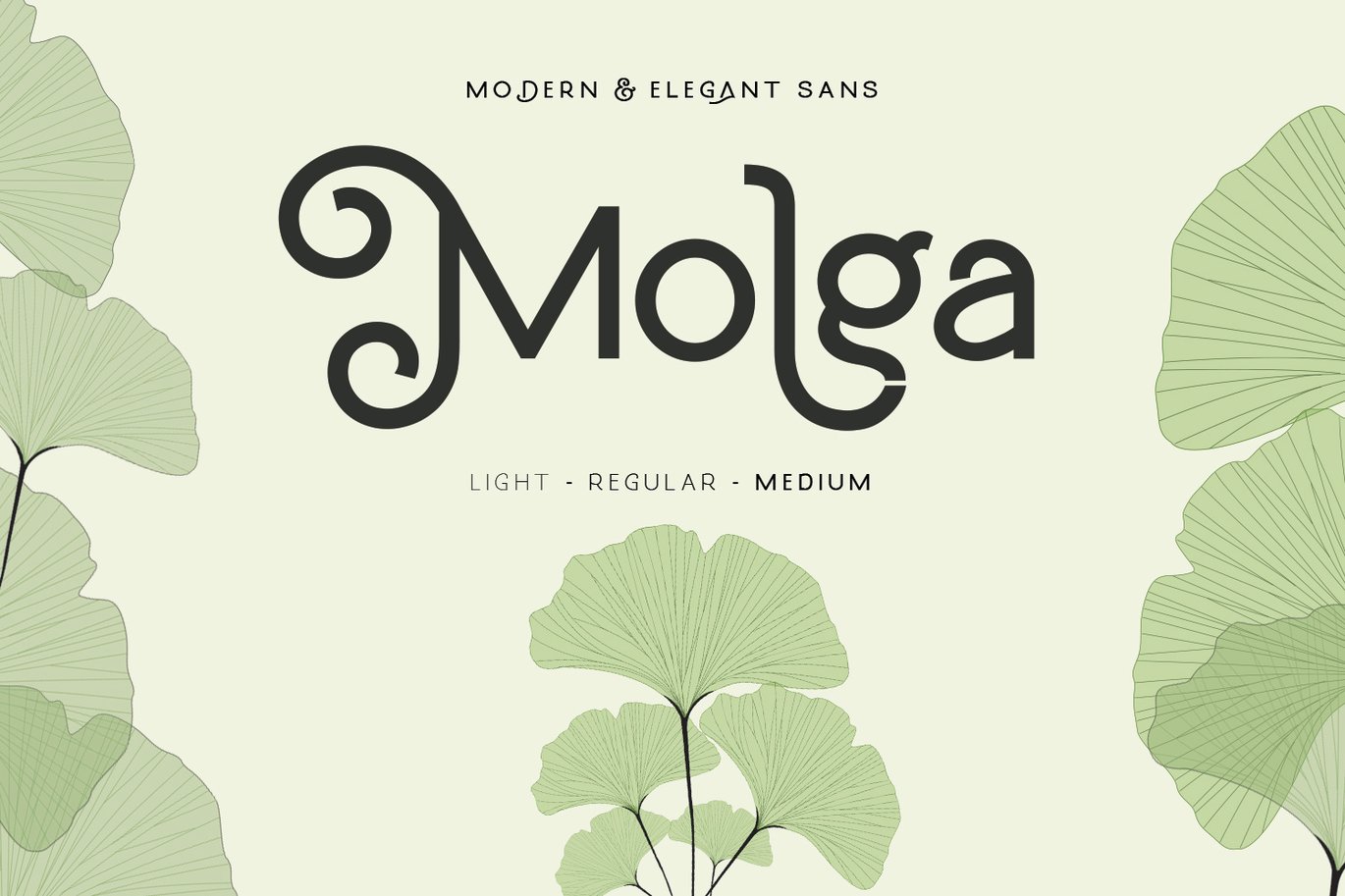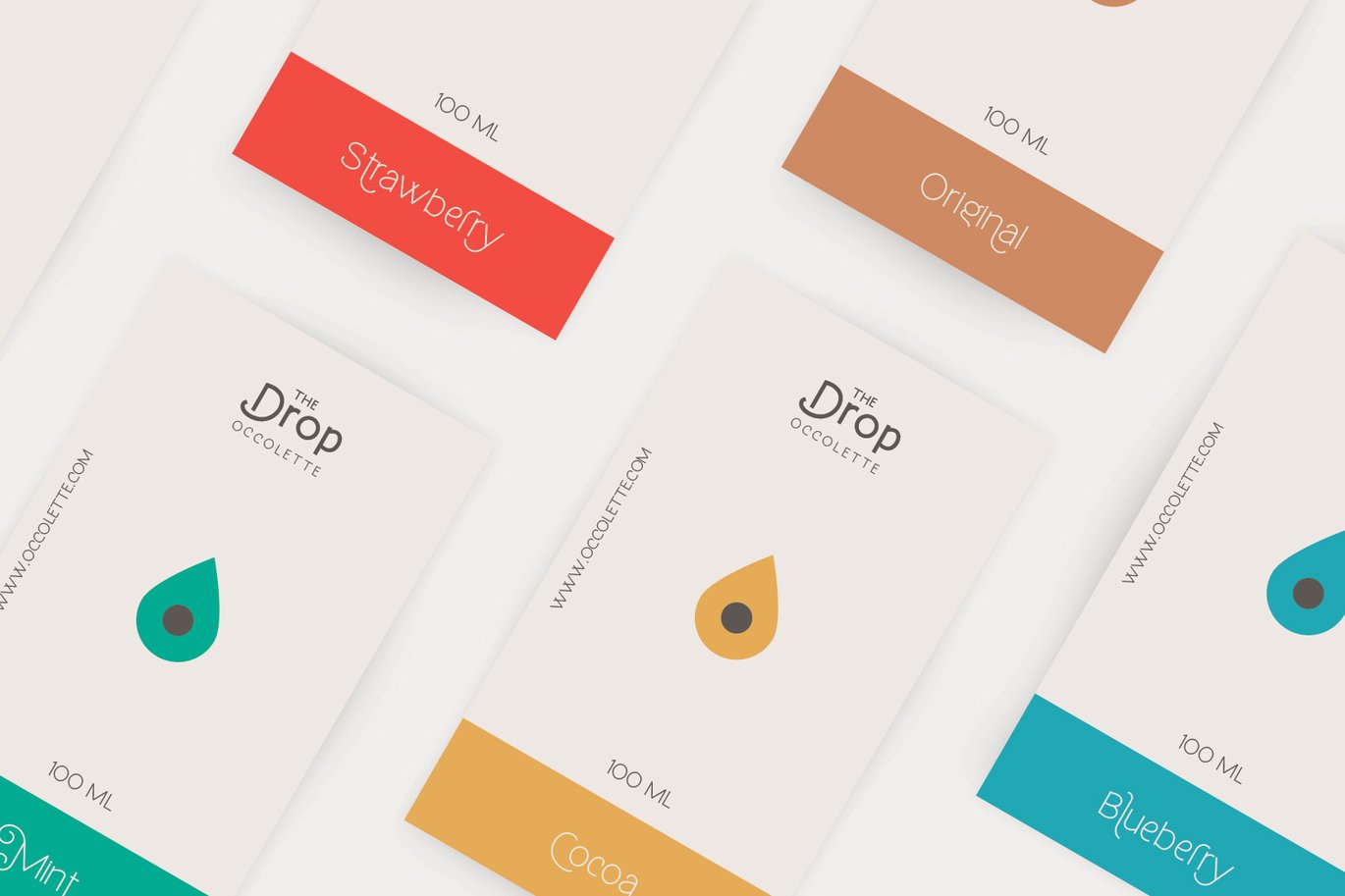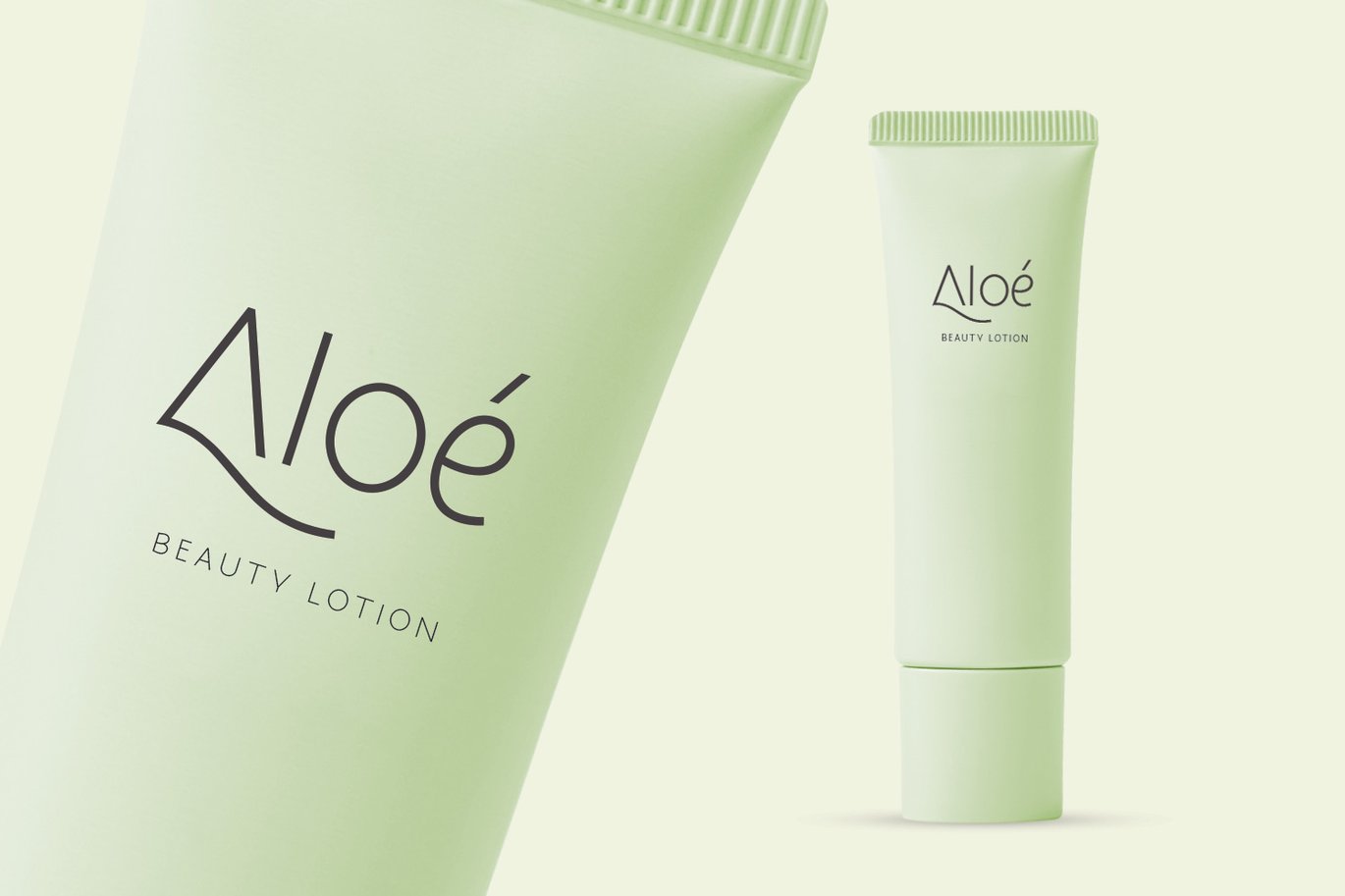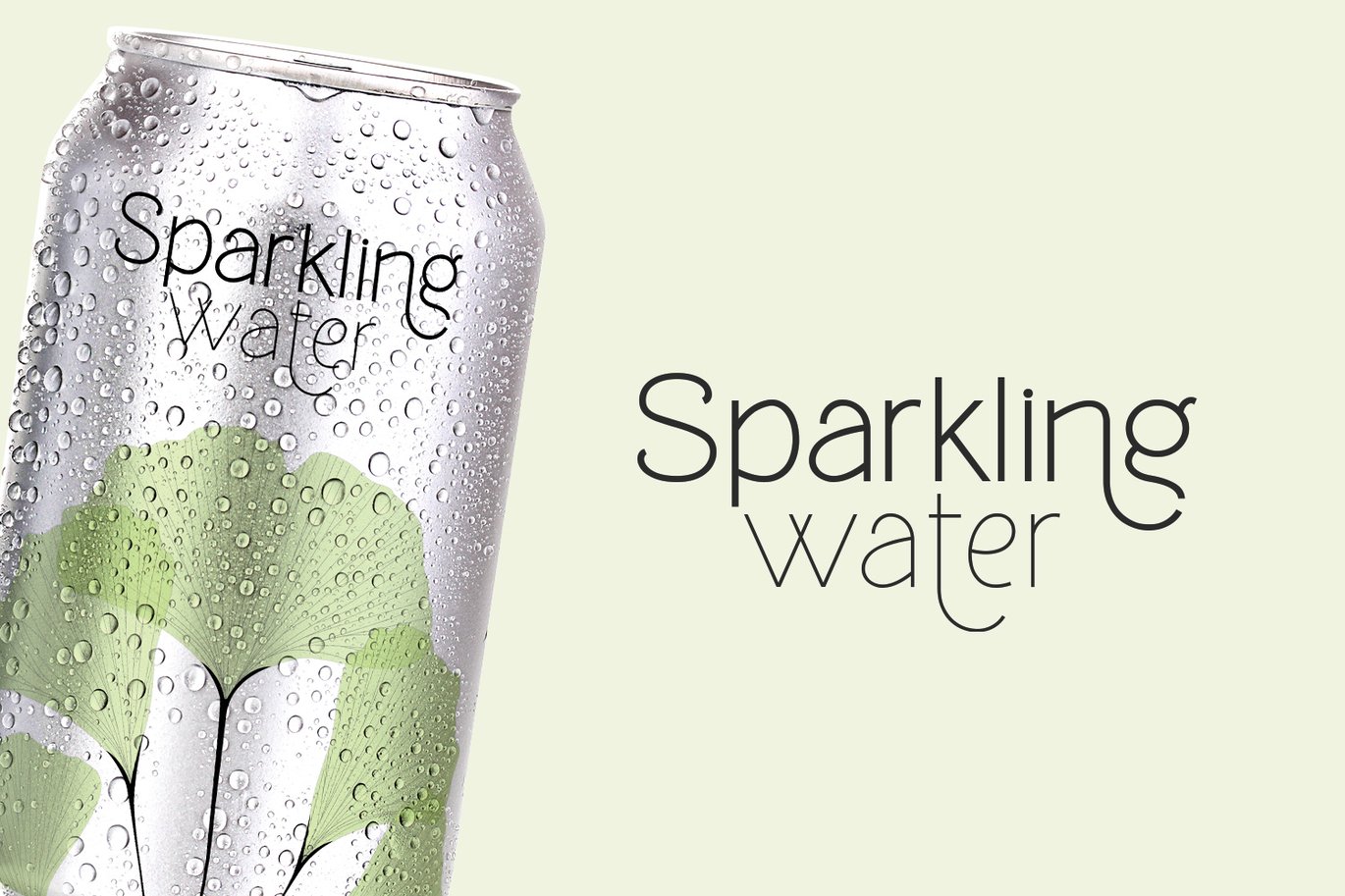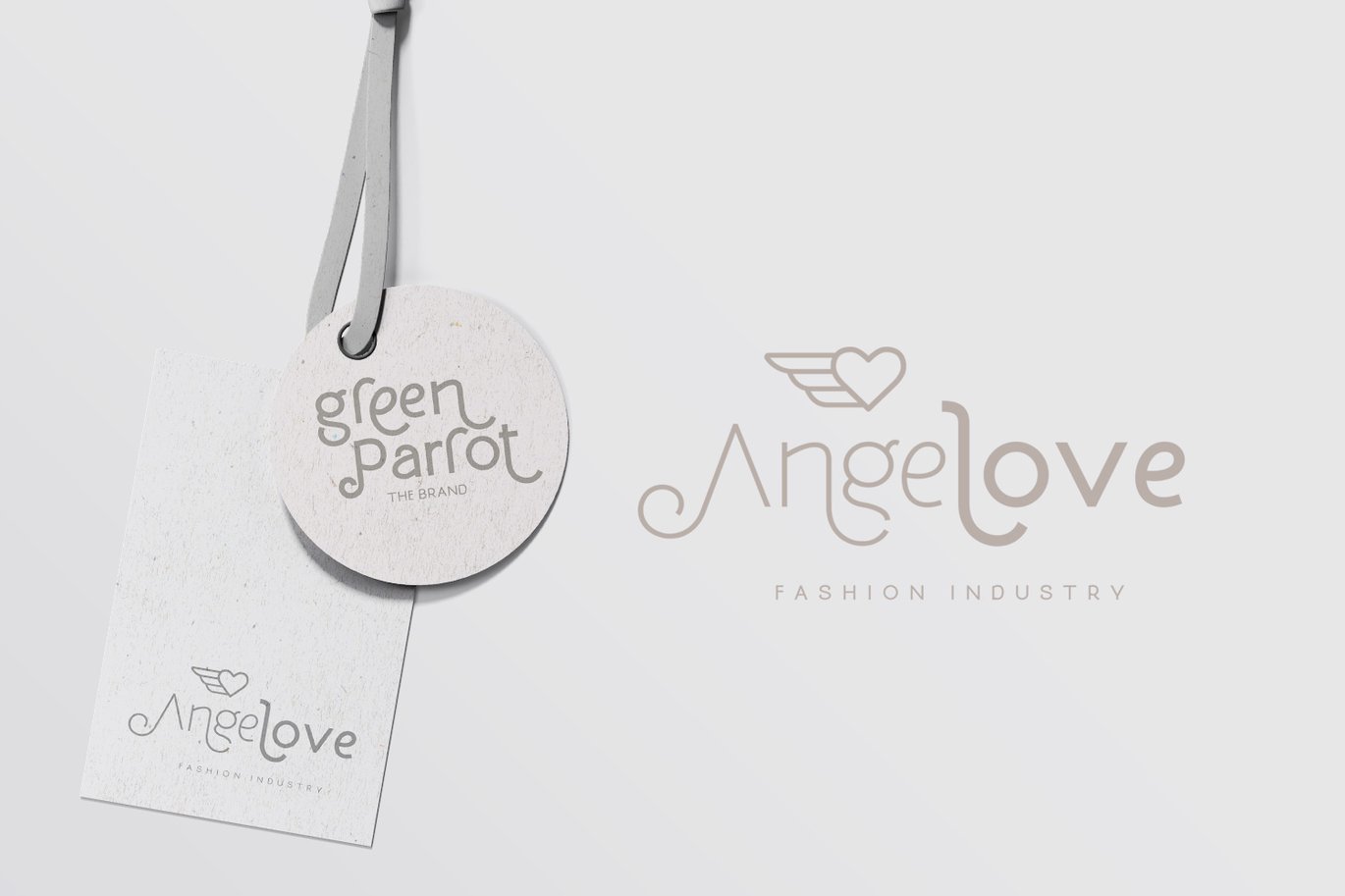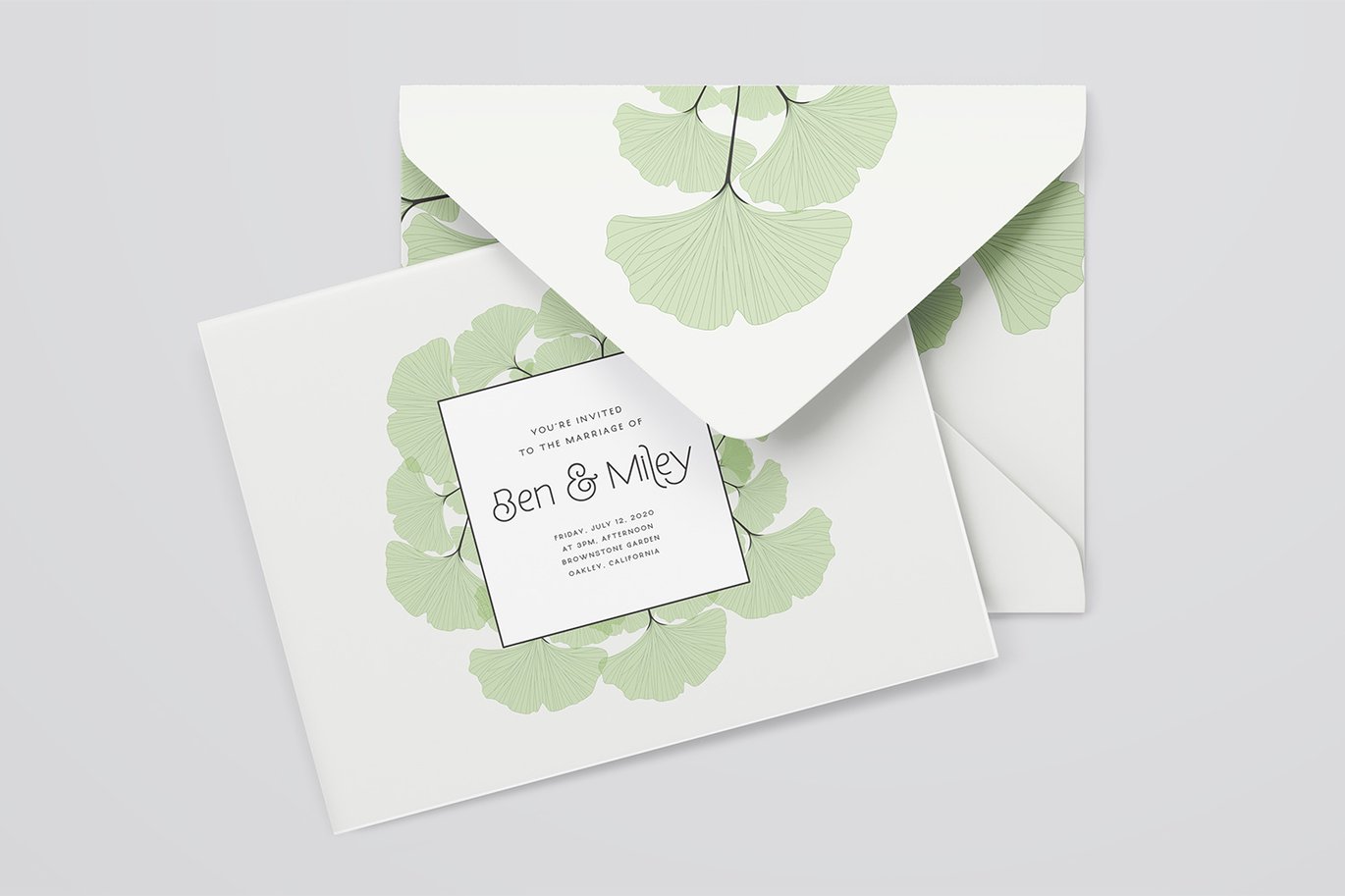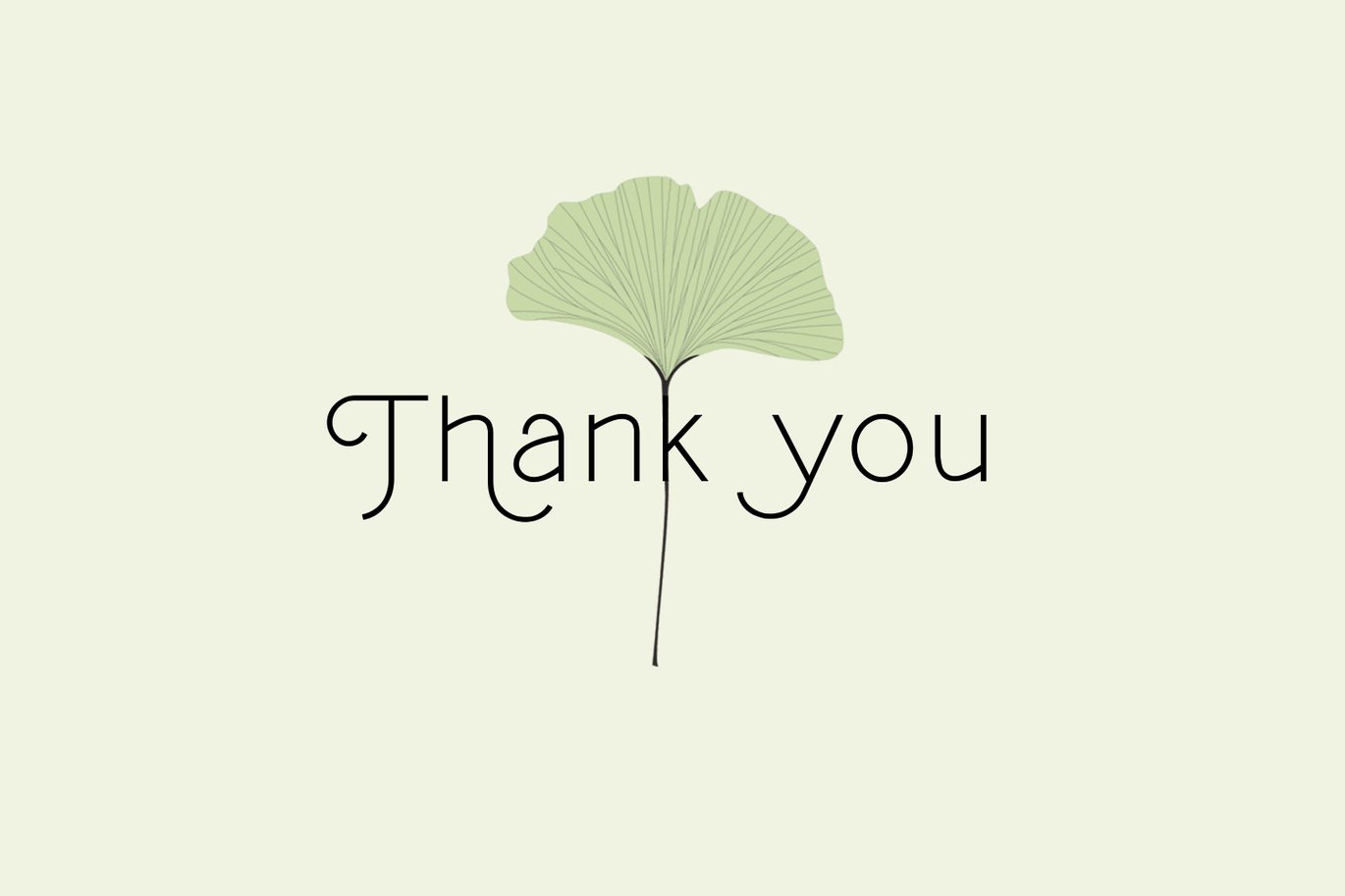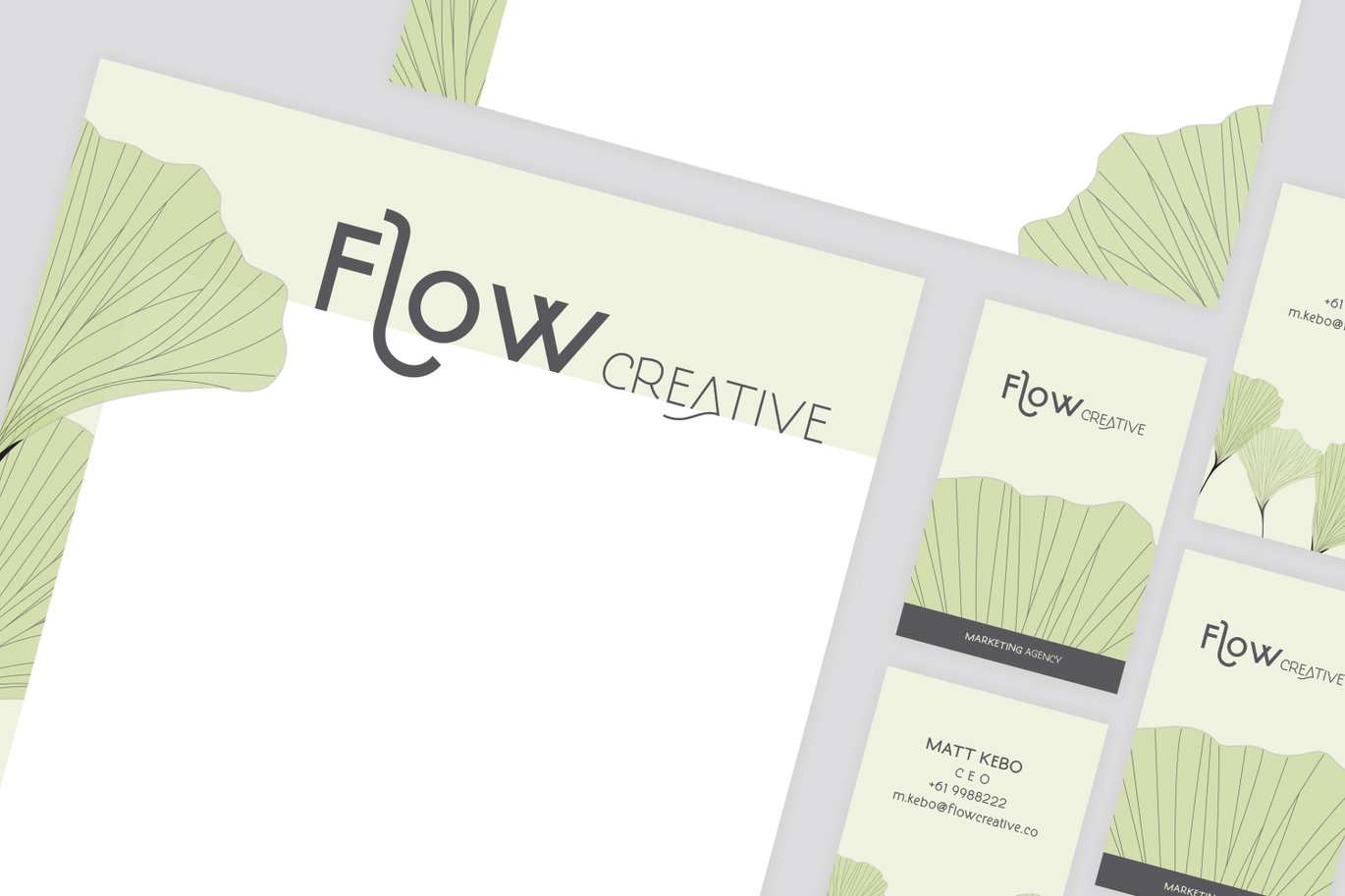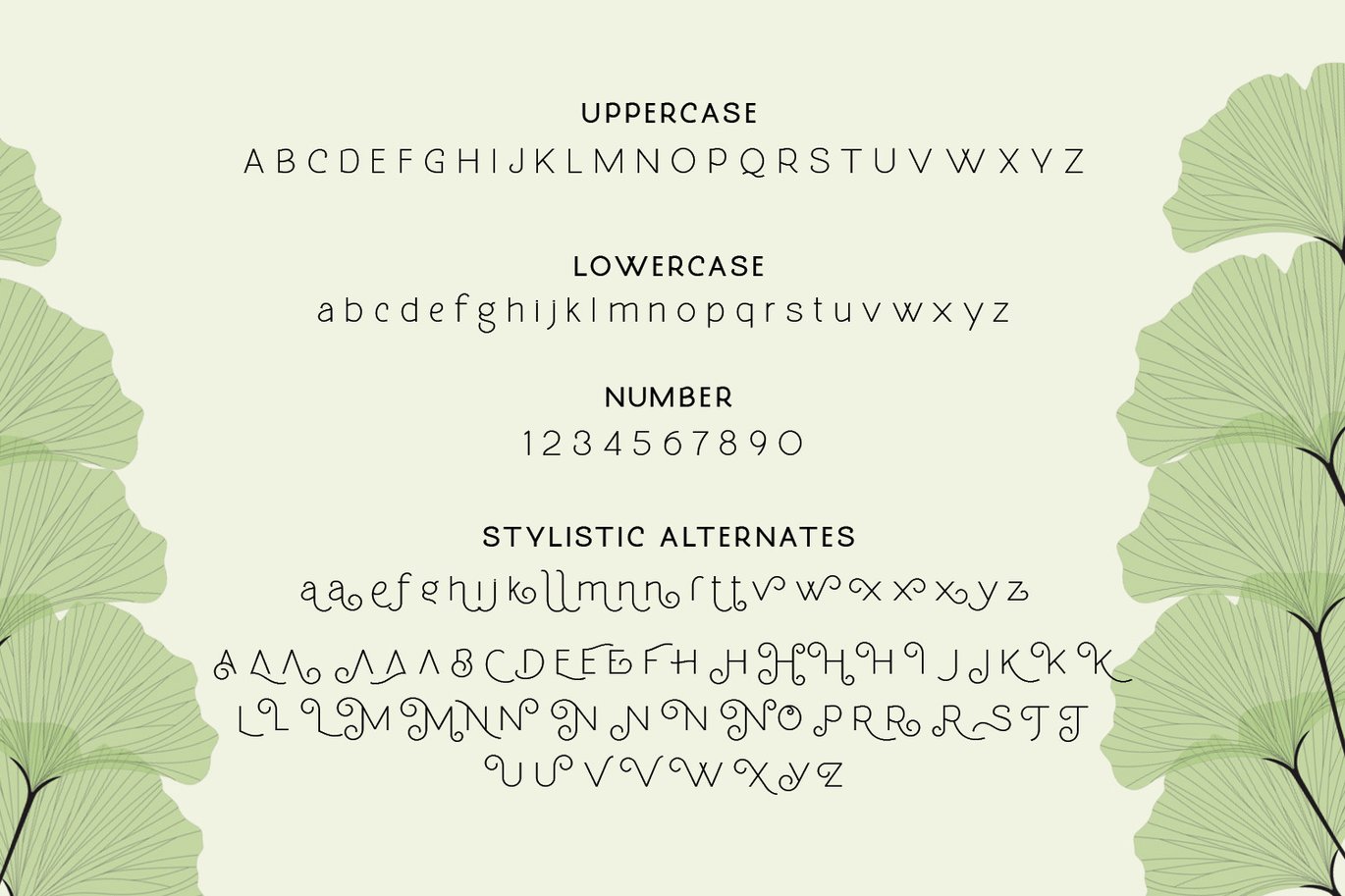
Molga font
Introducing Molga Font
Comes with three styles, light, regular and medium, Molga is modern beauty sans serif font with lot of stylistic alternates, elegant look with beauty curves to create an unique letter shapes for your design. Best for logo, poster, cards, wedding and many more..